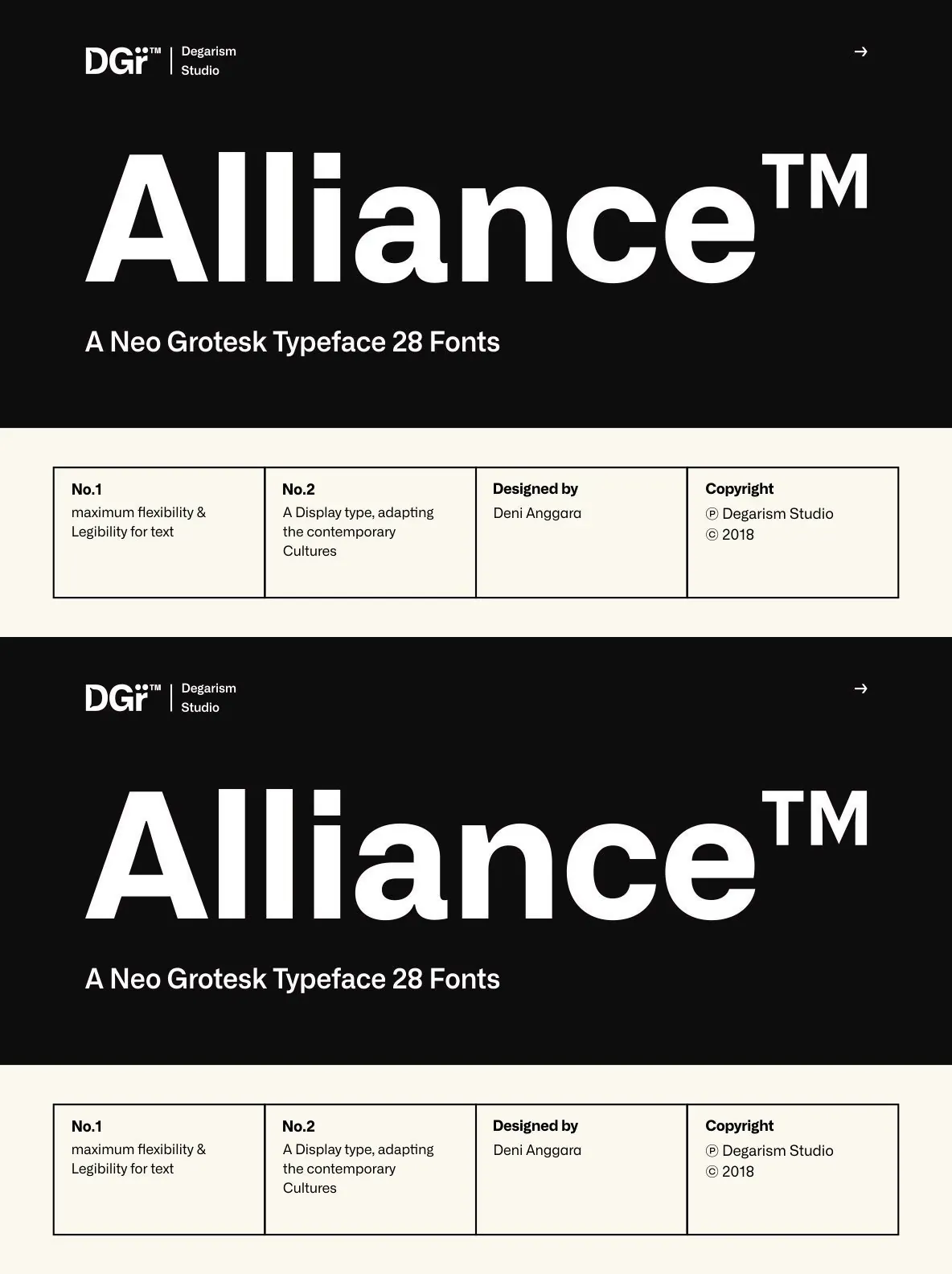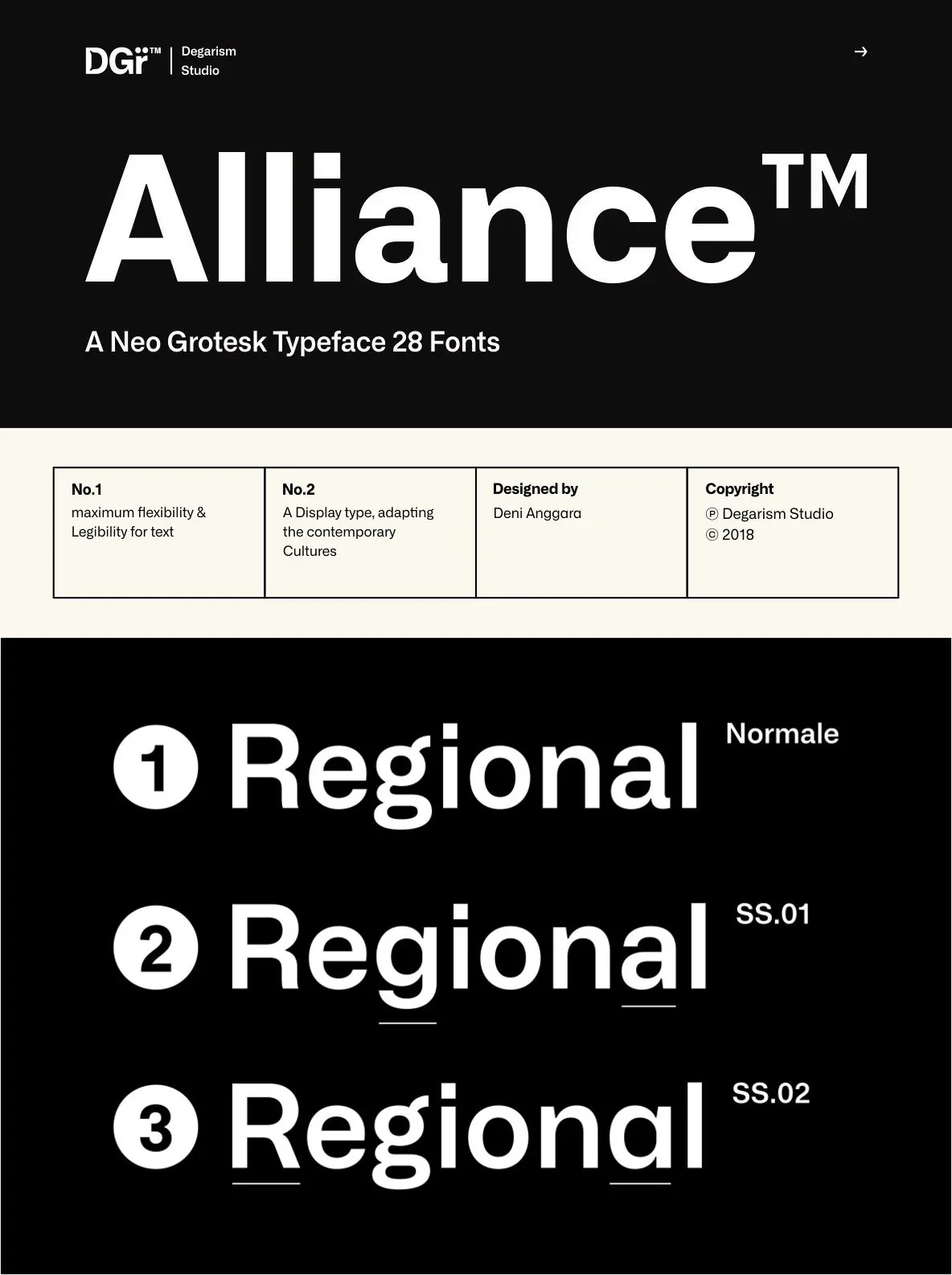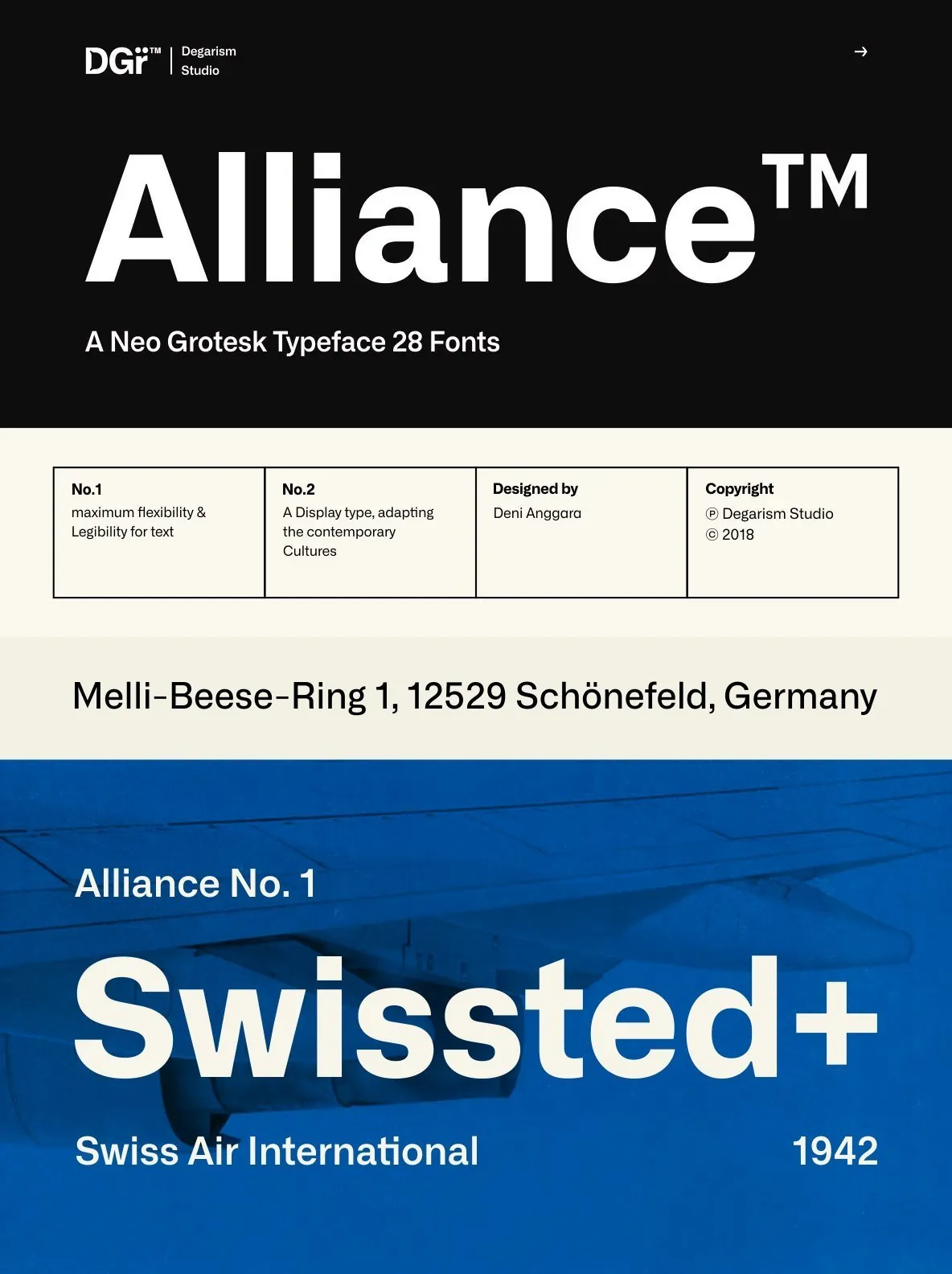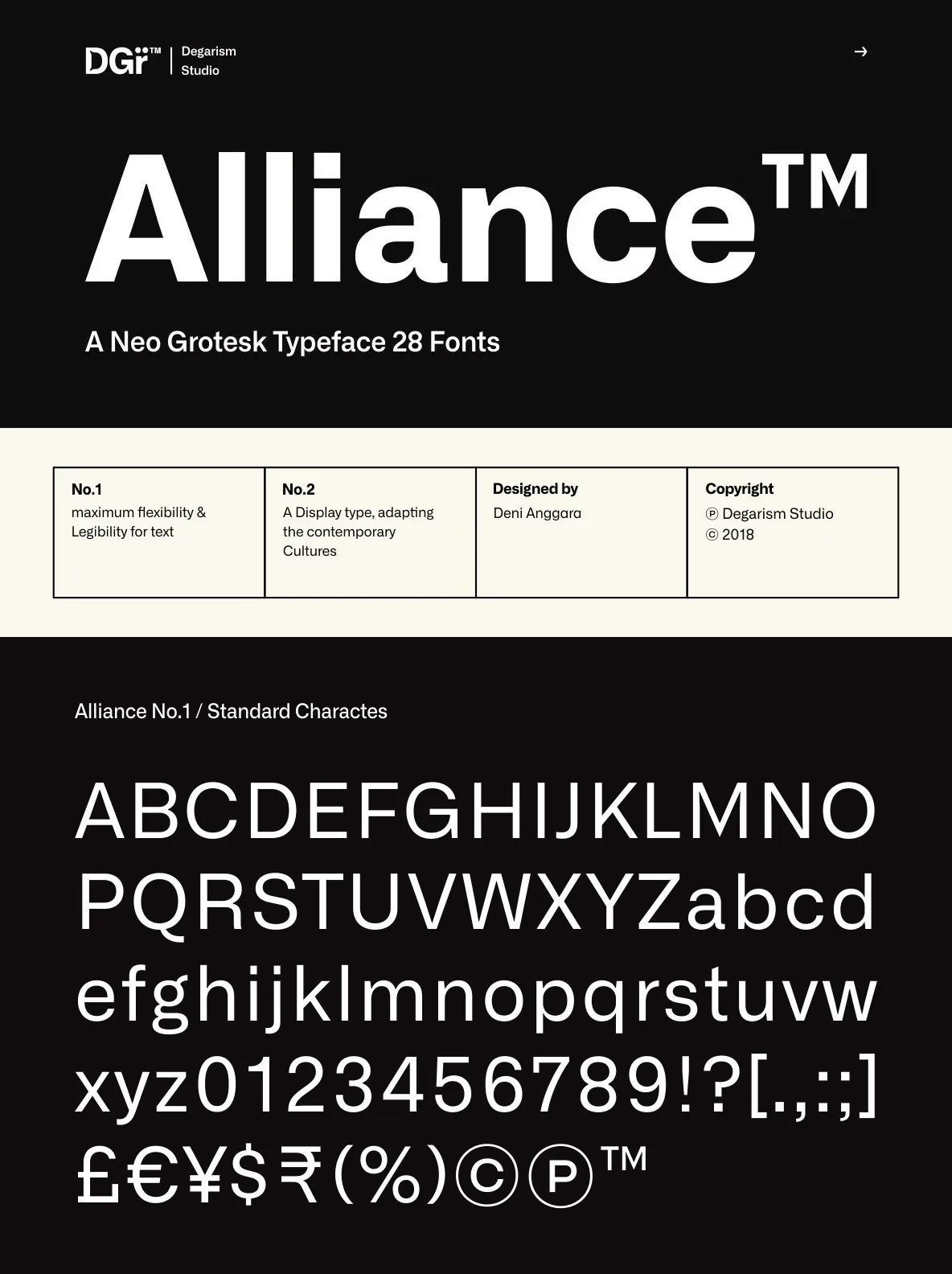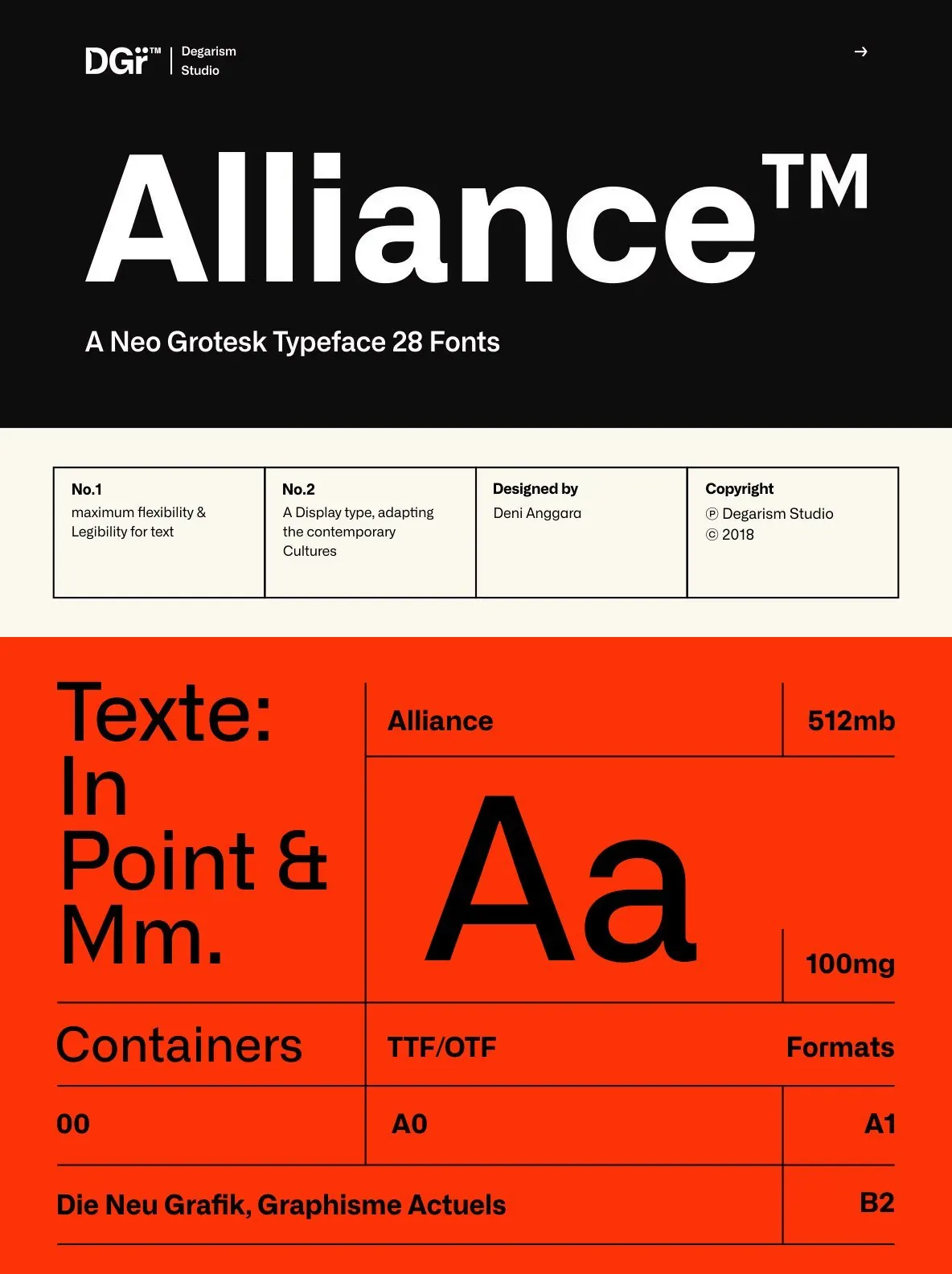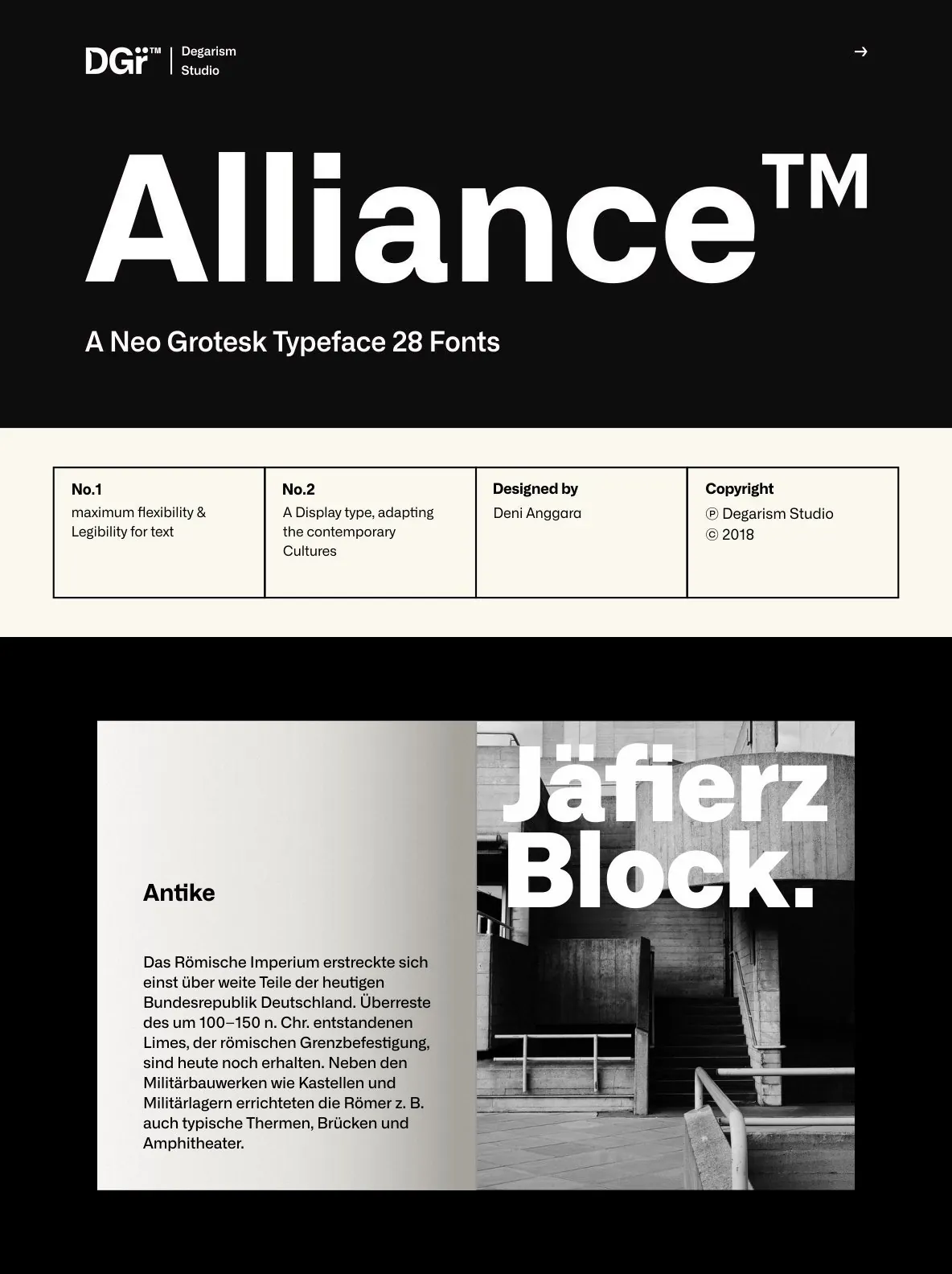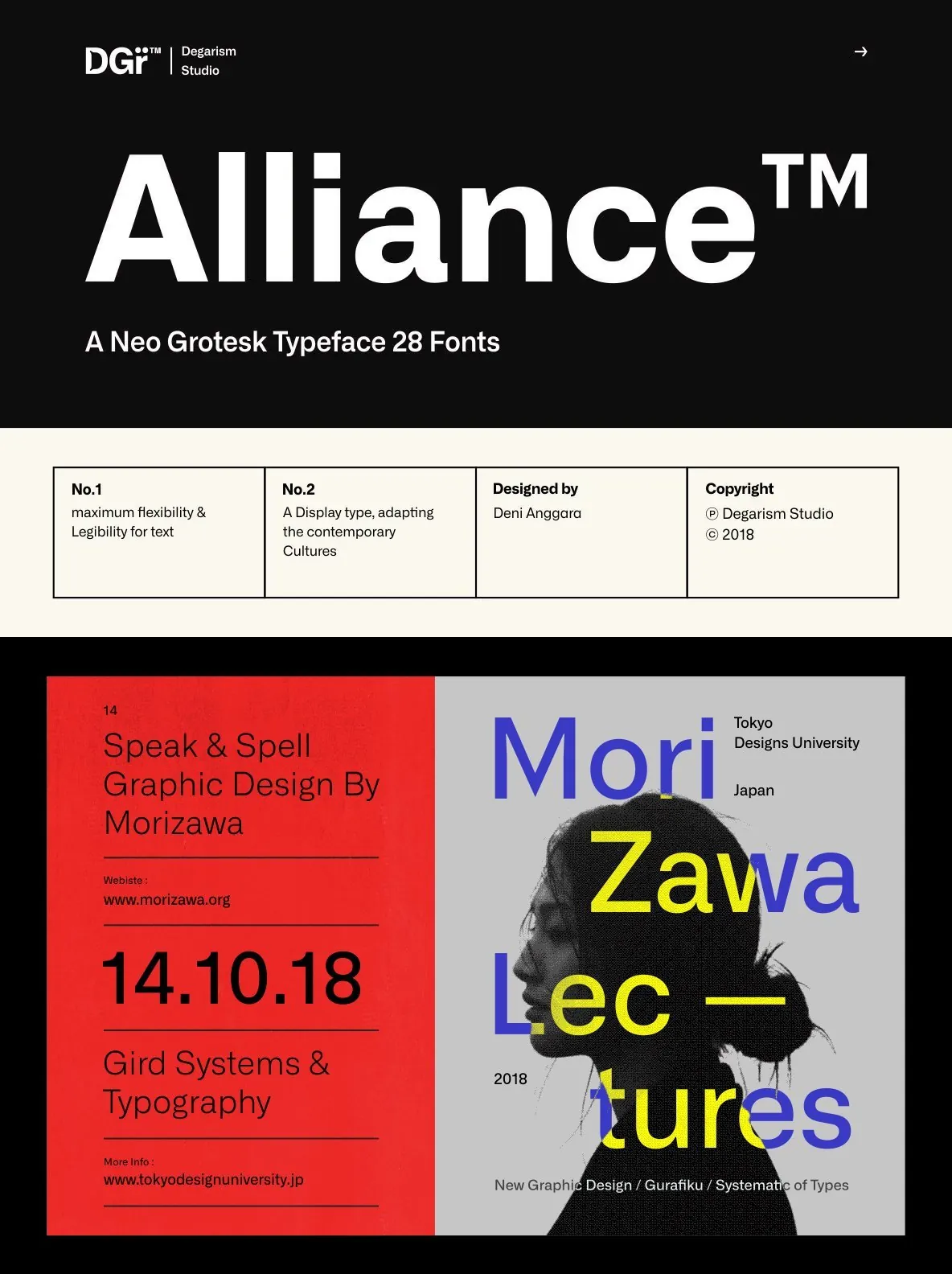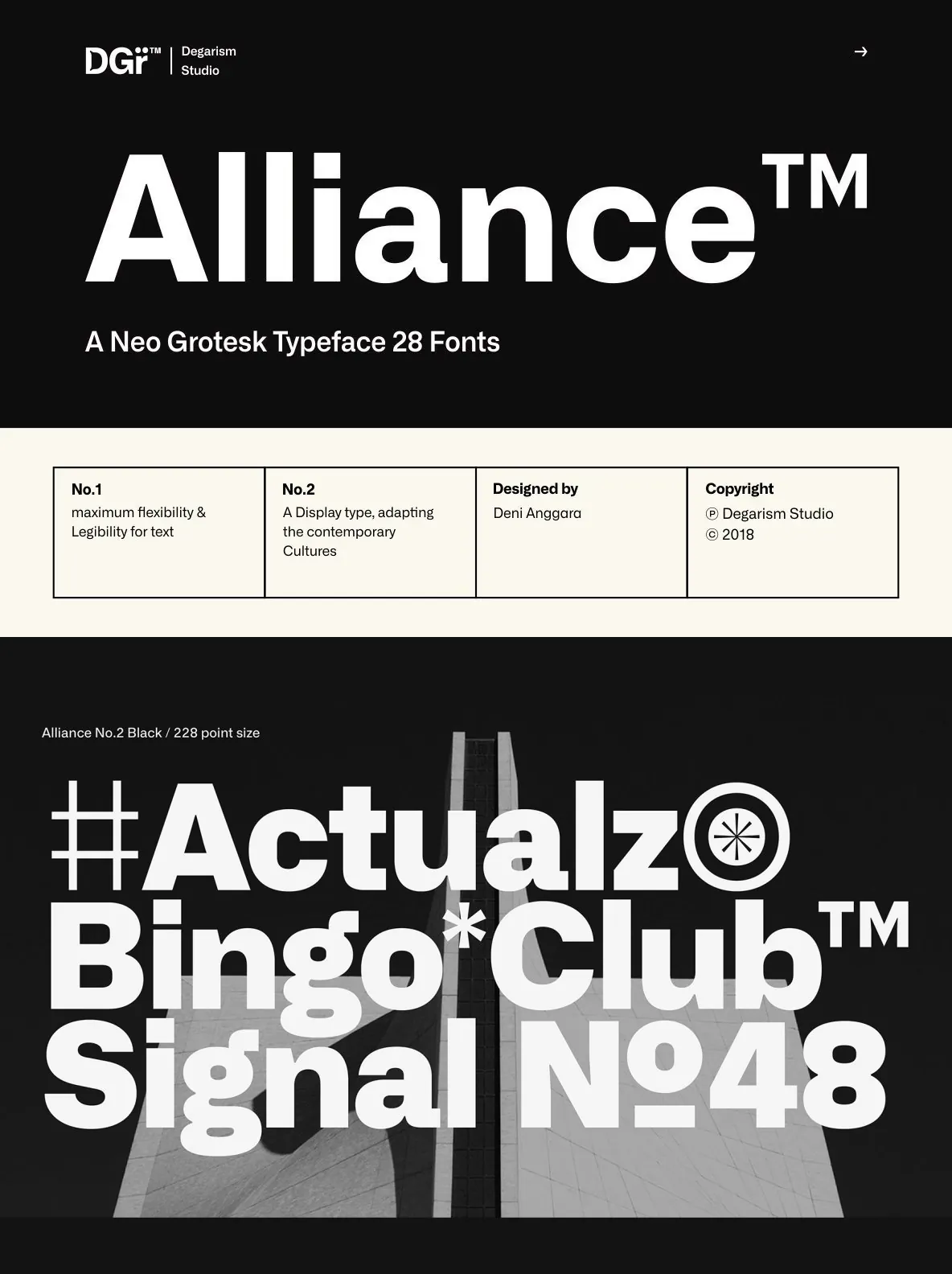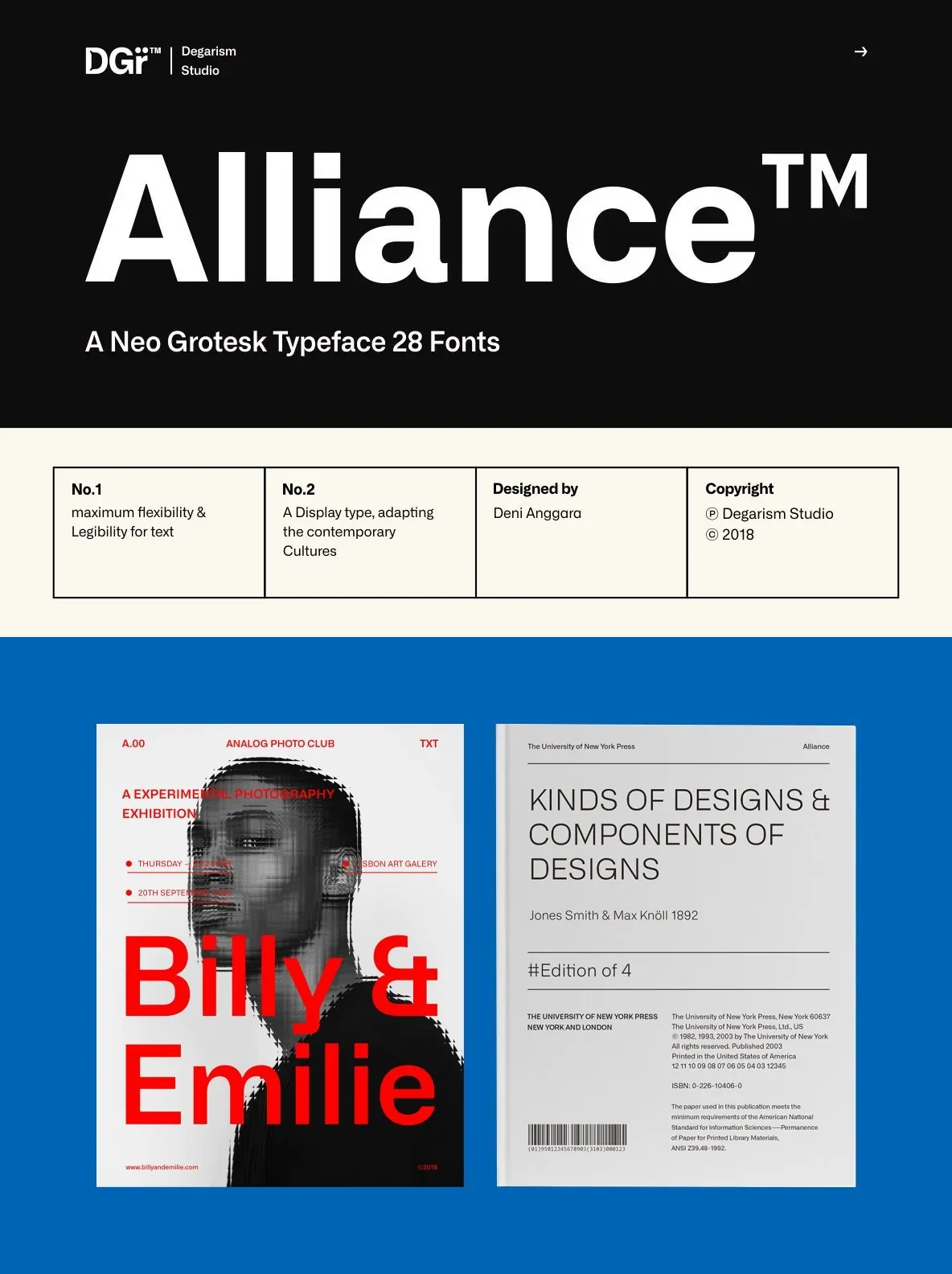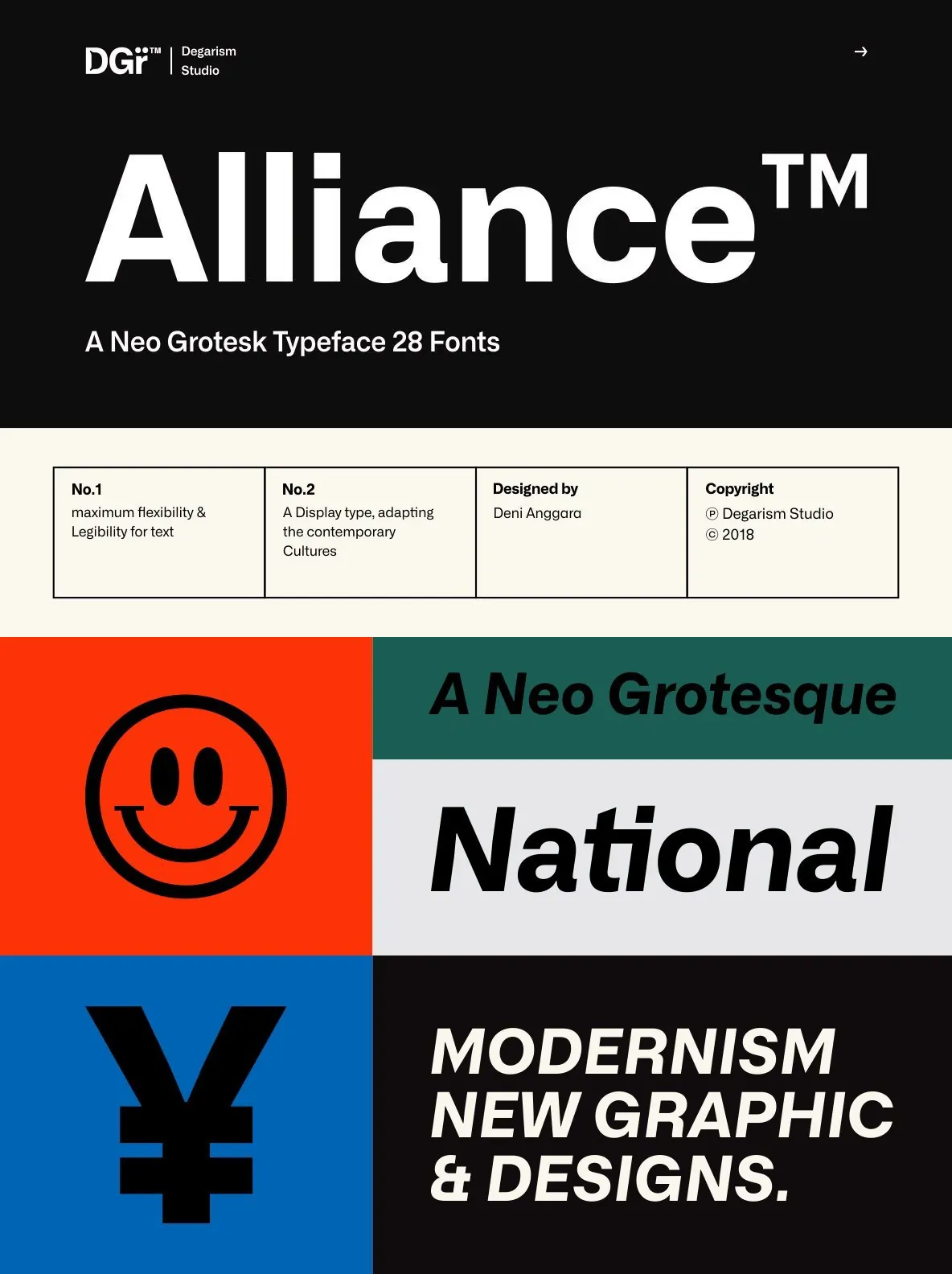
Alliance Font
Alliance: Industrial-Inspired Grotesk Typeface With Extensive Range
Alliance stands out for its rigorous attention to both tradition and versatility. Drawing from the industrial character of late 19th-century Grotesk typefaces, it brings a modern sensibility to classic forms. Alliance features monolinear strokes and carefully calibrated contrast across its many weights, providing clarity and sophistication for branding, editorial, and digital projects. The typeface includes 28 weights—14 uprights and their matching italics—offering designers a comprehensive toolkit for complex typographic hierarchies.
With over 592 glyphs per style, Alliance ensures robust Western, Central, and Eastern European language support. The thoughtful design supports both nuanced display work and demanding text applications. Alliance No.2, designed with display use in mind, emphasizes the interplay of contrasting shapes, making it particularly effective at large sizes and in settings where strong visual presence is essential.
28 weights with matching italics
Coverage of over 592 glyphs per weight
Full Western, Central, and Eastern European language support
Inspired by 19th-century Grotesk styles
Distinct monolinear strokes and varied contrast
Display-optimized No.2 variant with unique shape interplay